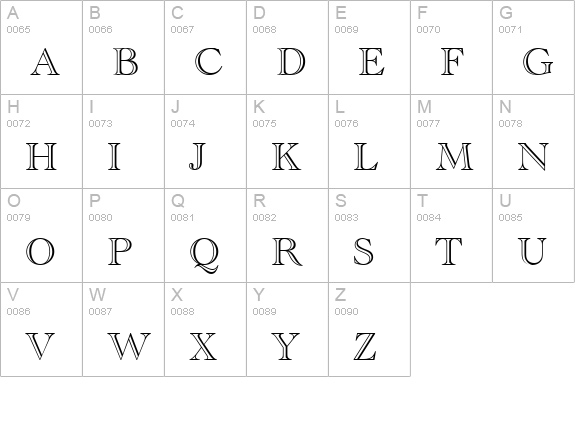
Academy Engraved LET font exudes elegance and sophistication with its classic yet modern design. This timeless typeface features intricate details and sharp lines that make it perfect for adding a touch of refinement to any project. Its stylish and distinguished appearance makes it ideal for formal invitations, branding materials, and other upscale designs. The best part? Academy Engraved LET font is available for free download at FontsMarket.com. Whether you're a professional designer looking to elevate your work or a casual user in need of a high-quality font, this typeface is the perfect choice. Don't miss out on the opportunity to enhance your projects with the beauty and charm of Academy Engraved LET font, all at no cost to you. Download it today and experience the luxury of this exquisite font for yourself.